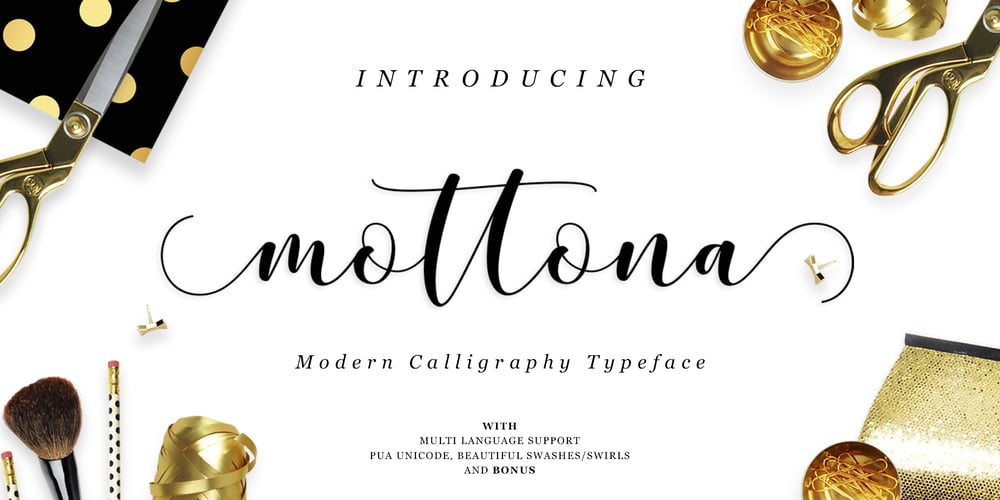
Mottona Script
Mottona Script font
Mottona Script Font Family was designed by Barmawi and published by Creative Lafont. Mottona Script contains 3 styles and family package options. Introduce Mottona Script is modern script font, every single letters have been carefully crafted to make your text looks beautiful. With modern script style this font will perfect for many different project ex: quotes, blog header, poster, wedding, branding, logo, fashion, apparel, letter, invitation, stationery, etc.Features :- Mottona Script- Mottona Bold Script- Mottona Thin ScriptIf there is anyone who download and find a problem, do not hesitate to let me know. Contact me by email.Thank You